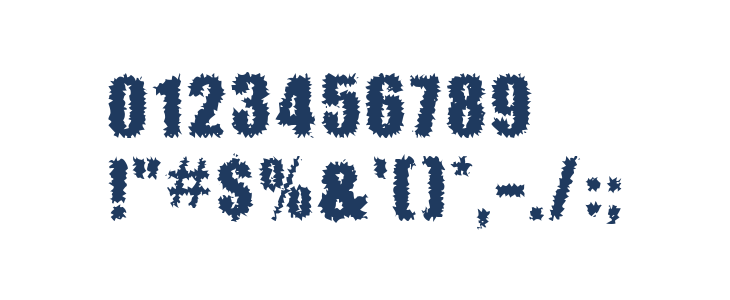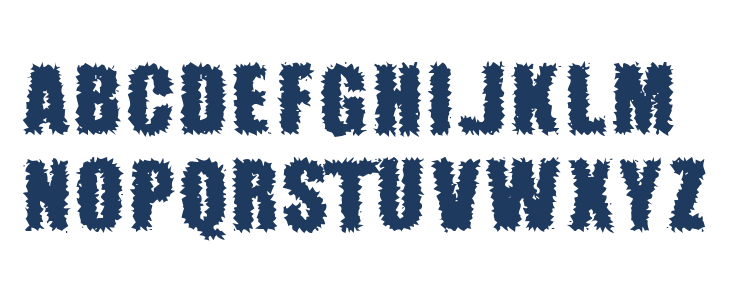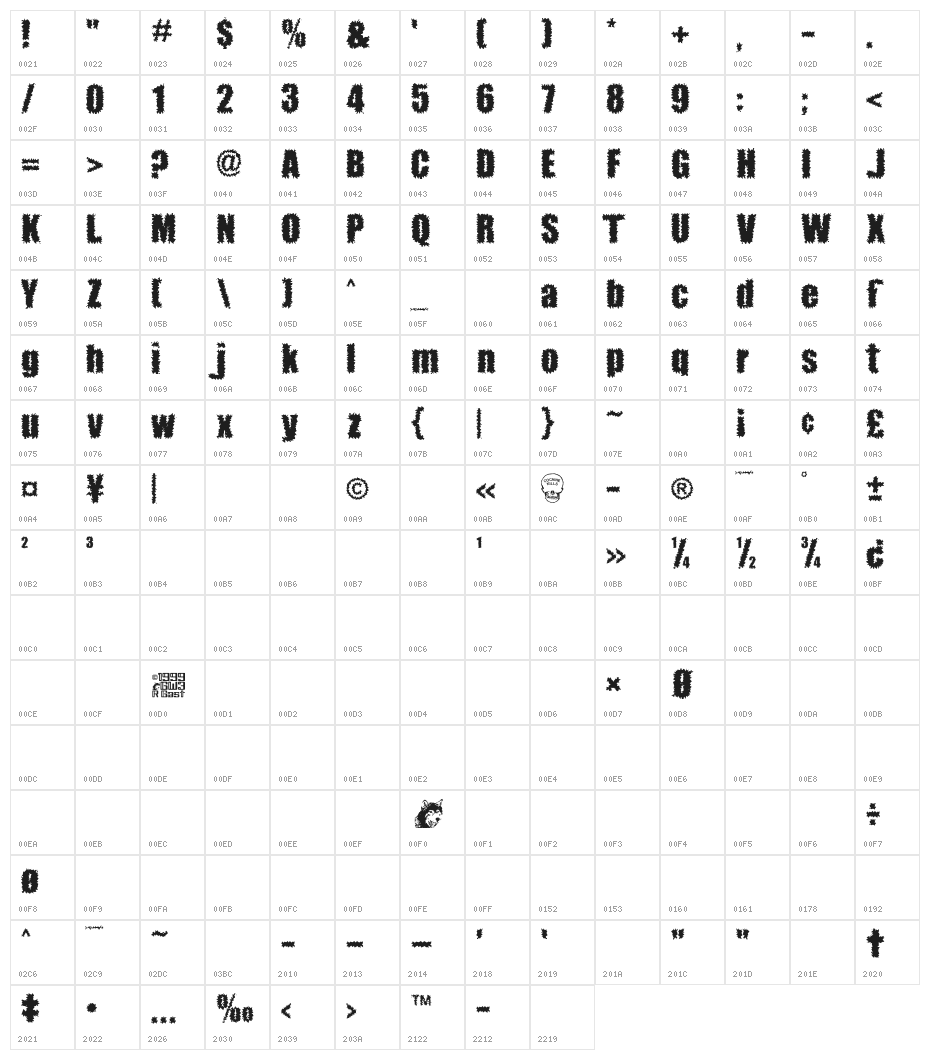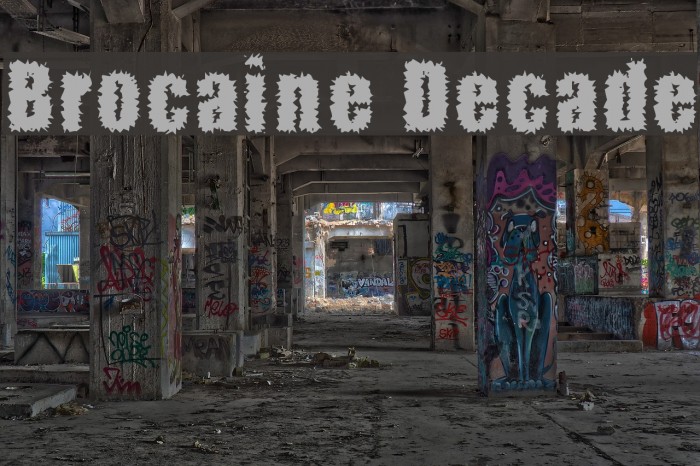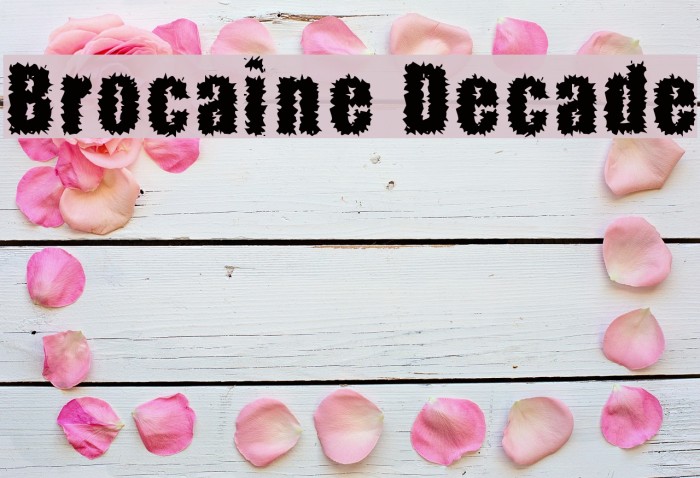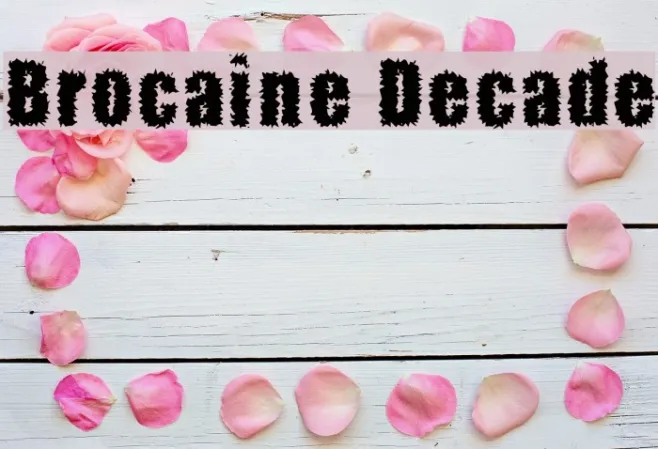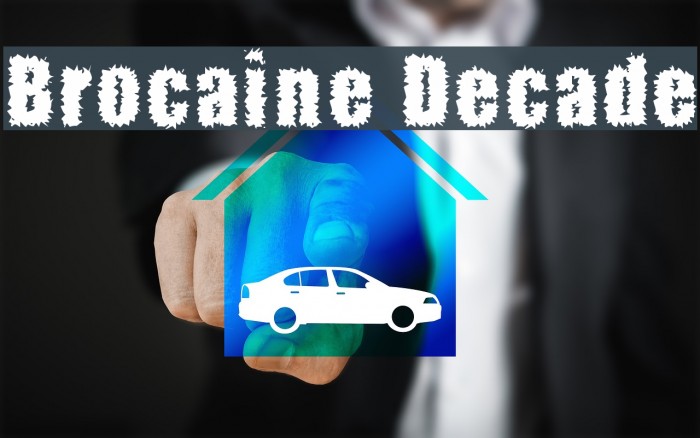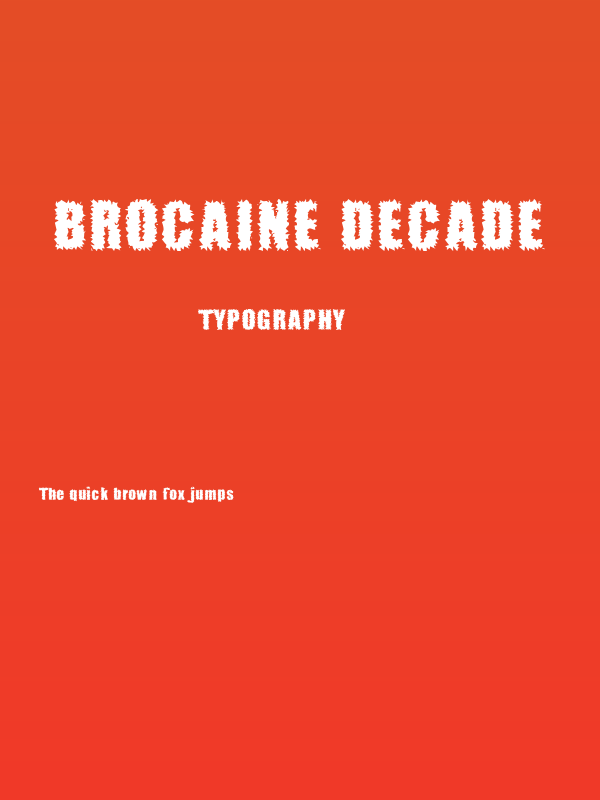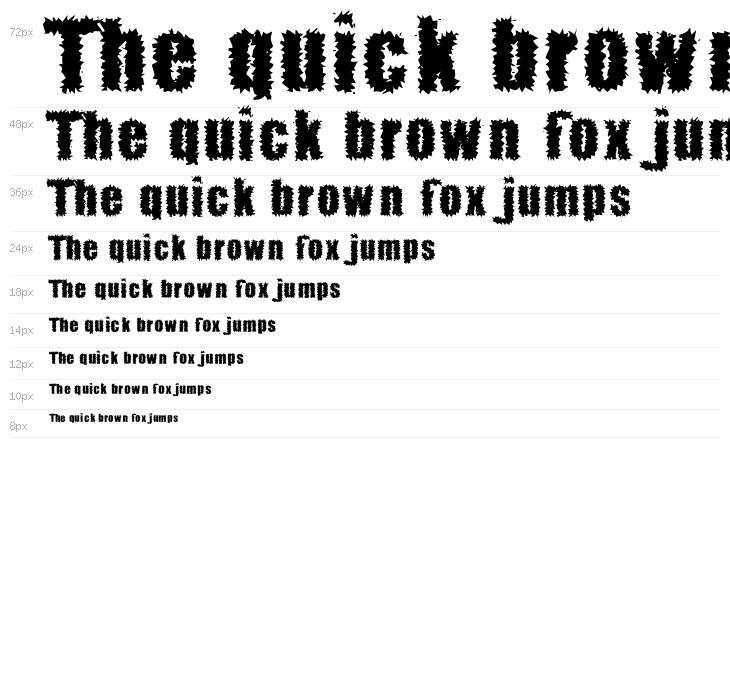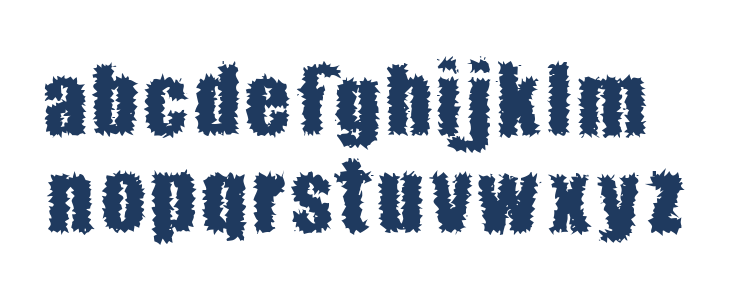
Brocaine Decade Font
Brocaine Decade Description
This font features a bold, jagged design that gives it a rugged and edgy appearance. The characters are heavily stylized with rough, uneven edges that create a sense of movement and energy. The uppercase and lowercase letters maintain a consistent style, with each character appearing as if it has been carved or torn from a solid block. The numbers and special characters follow the same design principles, ensuring a cohesive look across all elements. This font is highly decorative and makes a strong visual impact, suitable for projects that require a distinctive and unconventional typeface.
| Proposed Projects | Ideal for album covers, posters, branding for edgy products, or any design needing a bold statement. |